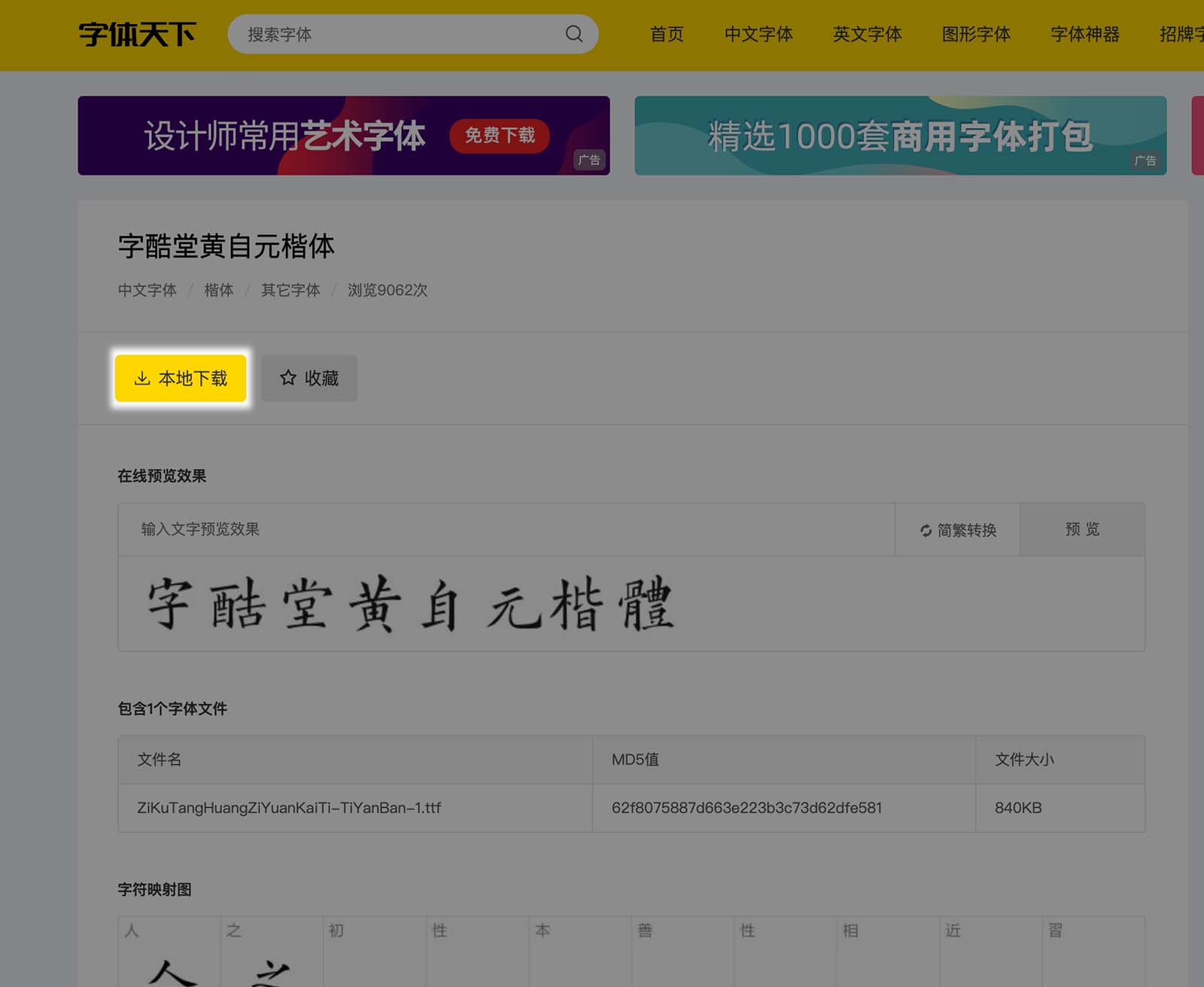
(traditional) Zi Ku Tang Huang Zi Yuan Kai Ti
Zi Ku Tang Huang Zi Yuan Kai Ti
Zi Ku Tang Huang Zi Yuan Kai Ti (字酷堂黄自元楷体) is a calligraphy Chinese font that is free to download. This font is neatly written and it’s great for both big and small text. The characters are in traditional Chinese but the character input is with simplified Chinese. This font is created by Zi Ku Tang.